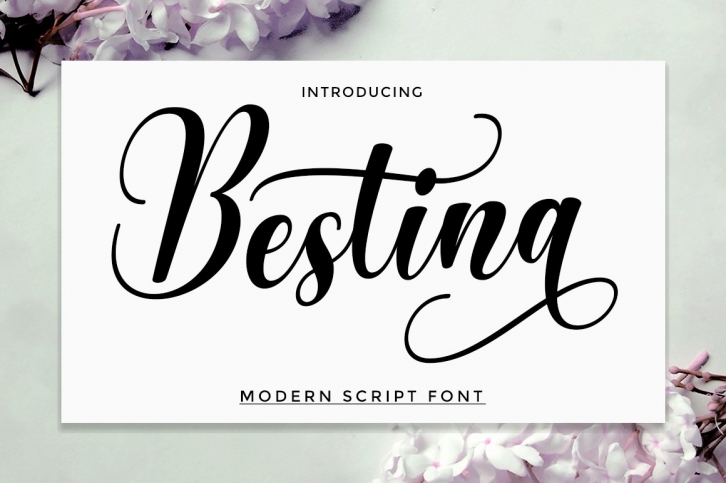
Bestina Script is a gorgeous font that was realeased on April 11, 2022. The font can be used in many style contexts and design environments. Perfect for invitations, magazines, websites, logos, and more! It was designed by Erick Studio and the file size is 9.23 MB. Thanks for checking out this font!